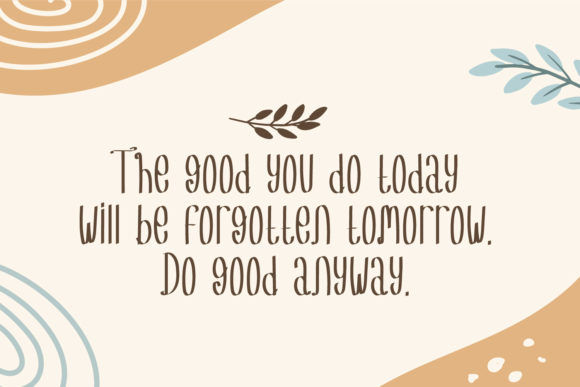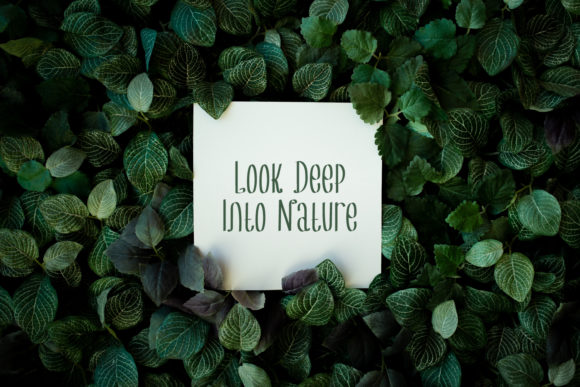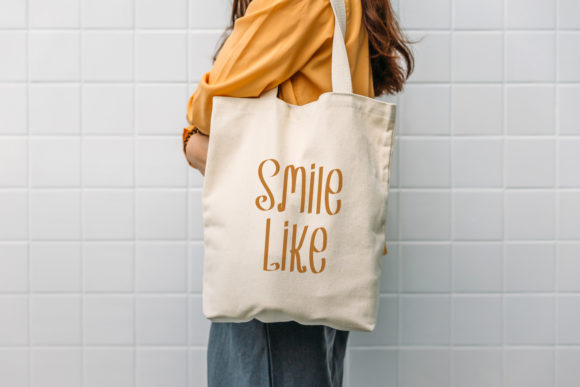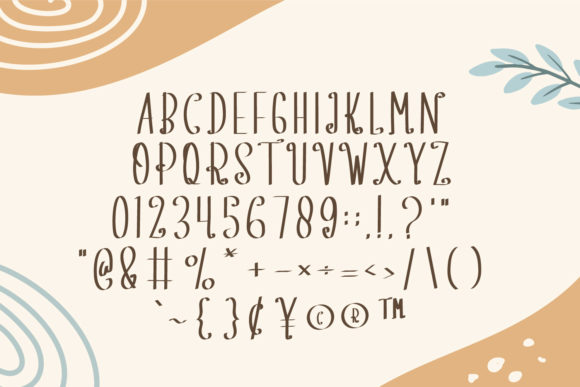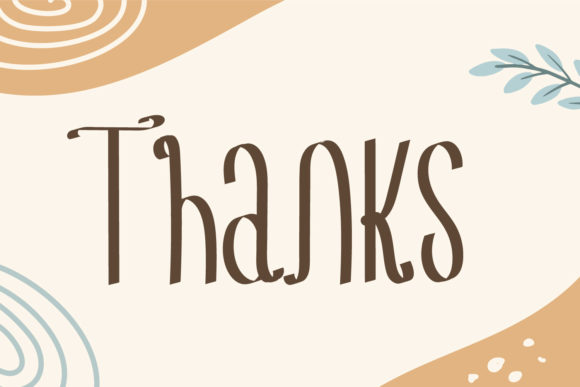
The Audrey’s Font Story: A Quirky Script for Creative Minds
I’ll never forget the moment I stumbled upon Audrey’s Font while working on a branding project for a trendy boutique. I was on a mission to find the perfect script font that would capture the essence of the brand – elegant, yet playful. As I scrolled through my font library, Audrey’s caught my eye, and I was immediately drawn to its unique charm. In this article, I’ll share my experience with Audrey’s Font, its features, and how to make the most of it in your designs.
An Honest Review of Audrey’s Font
Audrey’s Font is a one-of-a-kind script font that has won my heart. Here’s what I love about it:
• ✨ Unique and quirky, perfect for creative projects
• 💃 Beautifully crafted, with a touch of elegance
• 🎨 Versatile, suitable for a wide range of design contexts
While Audrey’s Font is amazing, it’s not perfect. Here are a few quirks to keep in mind:
• 🤔 Some letters may require manual kerning for optimal spacing
• ⚠️ Limited availability of stylistic alternates, but still offers great flexibility
Some common OpenType features and glyphs you might find in Audrey’s Font include:
Feature Description
Stylistic Alternates Alternative letterforms for added creativity
Glyphs Special characters, such as ligatures and ornaments
Ligatures Combined letters for a more elegant look
The Designer Inspiration Behind Audrey’s Font
Audrey’s Font was inspired by the elegance and playfulness of 1960s fashion. The font’s creator drew inspiration from iconic designers like Audrey Hepburn and Coco Chanel, combining their styles to create a unique and captivating script font.
Q: What makes Audrey’s Font unique?
A: Audrey’s Font stands out with its quirky, elegant, and highly legible design, making it perfect for creative projects.